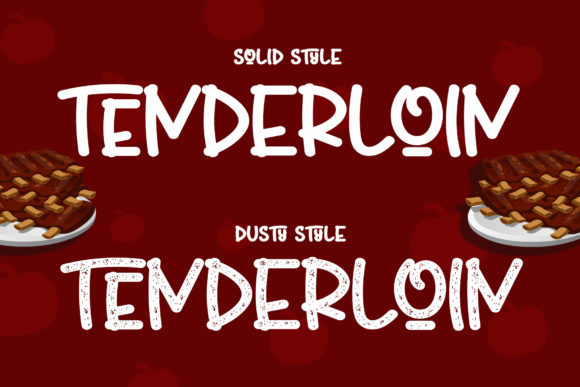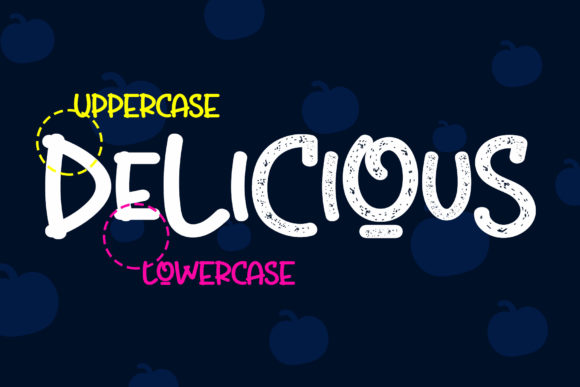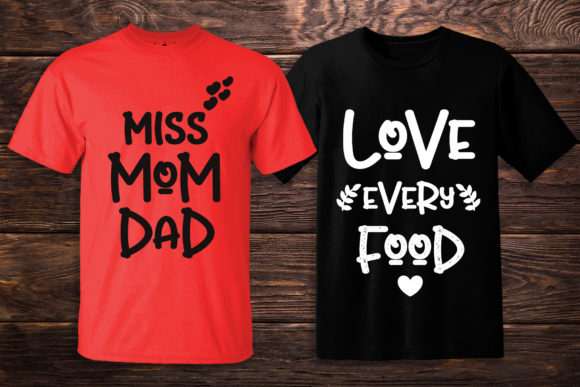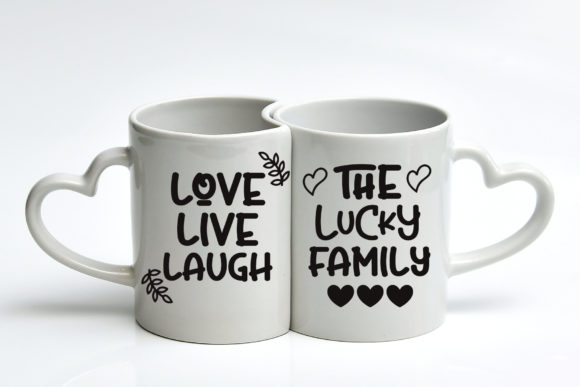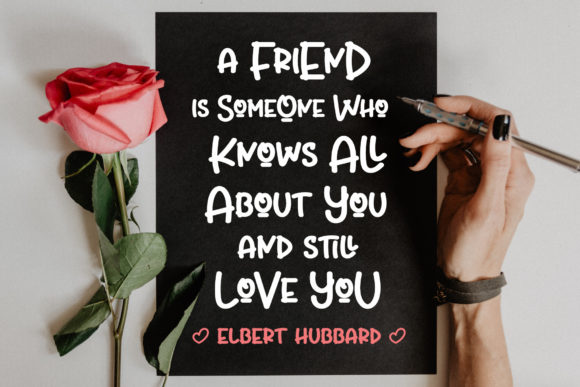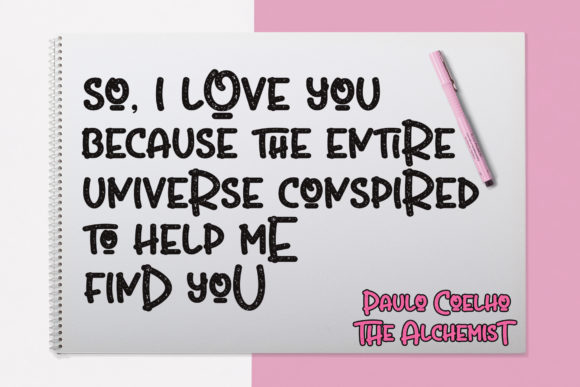
The Ultimate Guide to Fried Beef Tomato Font: Adding a Playful Vibe to Your Designs
An Honest Review of Fried Beef Tomato
So, what makes Fried Beef Tomato so special? Let’s dive into the good stuff! 😊
- ✨ Cute and Quirky: This font is perfect for adding a playful vibe to your designs. It’s like a breath of fresh air for your creative projects!
- ✅ Unique and Gorgeous: Fried Beef Tomato stands out from the crowd with its distinctive style. It’s sure to make your designs pop!
- 💡 Versatile: Whether you’re working on a DIY project, a client’s design, or a personal craft, this font adapts seamlessly to various design styles.
Of course, no font is perfect, and Fried Beef Tomato has a few minor quirks:
- 🤔 Limited Use Cases: While this font is amazing for playful designs, it might not be the best fit for more formal or professional projects.
- ⚠️ Glyph Limitations: Some users have reported that the font could benefit from more glyphs, especially for non-English languages.
The Story Behind Fried Beef Tomato
Ever wonder how Fried Beef Tomato came to be? The story goes that a talented font designer, inspired by the whimsical world of food, created this font as a side project. They wanted to capture the playful essence of a favorite dish (you guessed it – fried beef tomato!) and turn it into a digital font. And so, Fried Beef Tomato was born! 🍴
| Font Name | Fried Beef Tomato Font |
| Author | airotype |